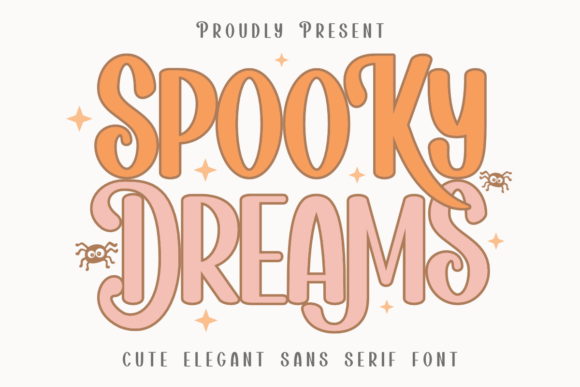
Spooky Dreams Regular Font: A Charming and Whimsical Display Font
The Spooky Dreams Regular Font is a captivating and enchanting display font that has been making waves in the design community. Its unique blend of bold, rounded letterforms and soft curves, along with decorative flair, makes it a perfect choice for those looking to add a touch of sweetness and vintage style to their creative projects.
What is Spooky Dreams Font?
Spooky Dreams is a charming and whimsical display font with a playful retro twist. It features bold, rounded letterforms with soft curves and decorative flair, making it an ideal choice for a wide range of design projects. The font is designed to stand out with its bubbly, hand-drawn character, which brings a perfect blend of sweetness and vintage style to your creative projects.
Key Features of Spooky Dreams Font
- Bold and Rounded Letterforms: The font features bold and rounded letterforms that give it a unique and captivating look.
- Soft Curves and Decorative Flair: The soft curves and decorative flair of the font add a touch of sweetness and vintage style to your designs.
- Playful Retro Twist: The font has a playful retro twist that makes it perfect for Halloween-themed designs, magical quotes, and more.
- Hand-Drawn Character: The font has a bubbly, hand-drawn character that brings a touch of personality and charm to your text.
Uses of Spooky Dreams Font
Spooky Dreams font is ideal for a wide range of design projects, including:
- Halloween-Themed Designs: The font is perfect for Halloween-themed designs, such as party invitations, decorations, and more.
- Magical Quotes: The font is great for creating magical quotes, such as inspirational quotes, motivational quotes, and more.
- Tote Bags and Kids’ Apparel: The font is suitable for designing tote bags, kids’ apparel, and other products that require a fun and playful design.
- Stickers and Social Media Graphics: The font is perfect for creating stickers, social media graphics, and other digital content that requires a unique and eye-catching design.
- Greeting Cards: The font is great for designing greeting cards, such as birthday cards, holiday cards, and more.
Why Choose Spooky Dreams Font?
There are several reasons why you should choose Spooky Dreams font for your design projects:
- Unique and Eye-Catching Design: The font has a unique and eye-catching design that will make your text stand out.
- Playful and Whimsical: The font has a playful and whimsical feel that makes it perfect for designs that require a touch of personality and charm.
- Vintage Style: The font has a vintage style that makes it perfect for designs that require a nostalgic and retro look.
- Easy to Read: The font is easy to read, making it perfect for designs that require a clear and legible text.
Spooky Dreams Font Pairing
Spooky Dreams font can be paired with other fonts to create a unique and eye-catching design:
- Serif Fonts: Pair Spooky Dreams font with serif fonts, such as Times New Roman or Georgia, for a classic and elegant look.
- Script Fonts: Pair Spooky Dreams font with script fonts, such as Pacifico or Great Vibes, for a playful and whimsical look.
- Display Fonts: Pair Spooky Dreams font with other display fonts, such as bold sans serif fonts, for a bold and eye-catching look.
In conclusion, Spooky Dreams Regular Font is a charming and whimsical display font that is perfect for designs that require a touch of personality and charm. Its unique and eye-catching design, playful retro twist, and vintage style make it a great choice for a wide range of design projects. With its ease of use and versatility, Spooky Dreams font is a must-have for any designer looking to add a touch of magic to their designs.